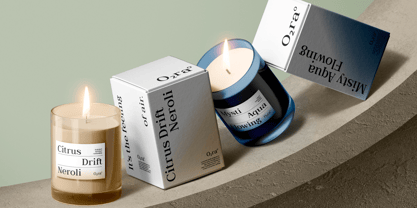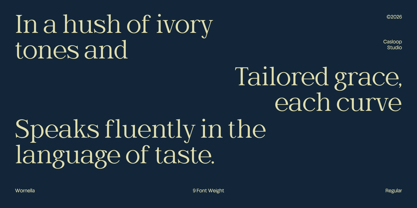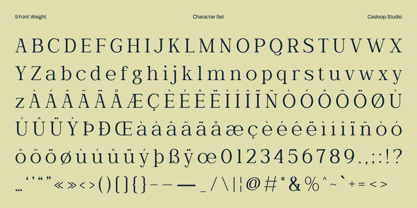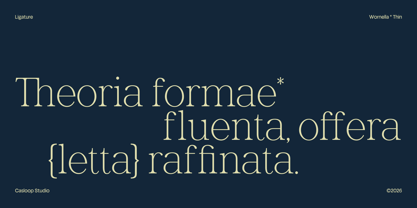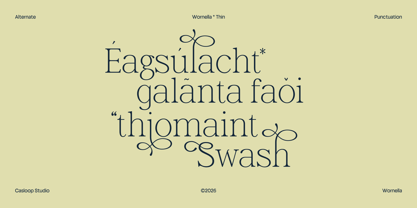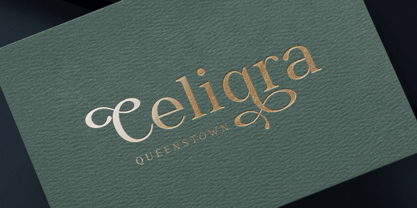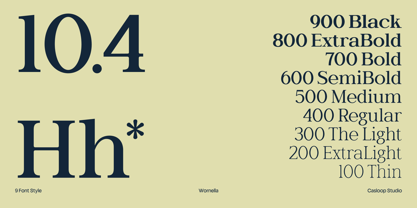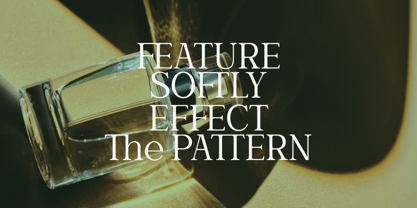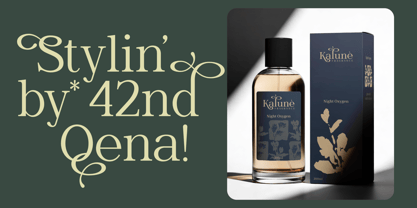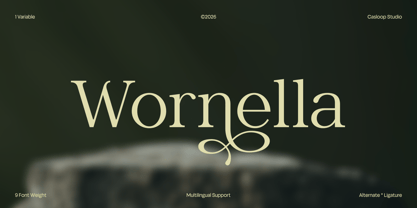
Wornella
by Casloop Studio
The Wornella Font Family was designed by Wantara Putra and published by Casloop Studio. Wornella contains 9 styles and family package options. More about this family
Wornella is a luxury modern serif font designed to express premium elegance with a calm and controlled presence. Its defining characters A, R, Q, E, S, and G are shaped with refined proportions, subtle stroke contrast, and carefully balanced serif terminals that feel firm yet lightweight. This delicate precision creates a graceful visual rhythm that feels sophisticated without excess, making Wornella ideal for boutique branding, fragrance packaging, logos, and high-end titles that require a polished, modern, and enduring aesthetic. Recommended pairing with Cormorant, Playfair Display, DM Sans, Didot, Helvetica Neue, Optima Multilingulal Support : Bosnian, Catalan, Czech, Danish, German, English, Spanish, Estonian, Finnish, French, Irish, Croatian, Hungarian, Icelandic, Italian, Lithuanian, Latvian, Dutch, Norwegian, Polish, Portuguese, Romanian, Slovak, Slovenian, Albanian, Swedish, Turkish.